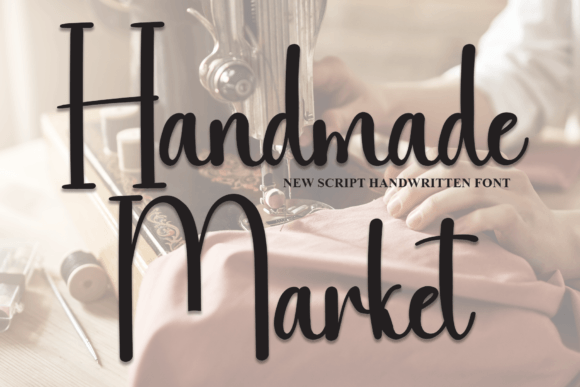
Meet Handmade Market Font, the playful and easygoing handwritten font that's ready to add a dash of charm to all your creative projects. Whether you're a seasoned graphic designer or just starting, this font is your perfect companion for irresistible designs.
With its unique and charismatic style, Handmade Market Font will effortlessly elevate your designs to new heights. Its friendly and approachable vibe makes it an excellent choice for crafting eye-catching logos, vibrant posters, engaging social media graphics, and heartfelt greeting cards for any occasion.
But it doesn't stop there - Handmade Market Font is an extraordinary choice for digital designs. Its smooth and fluid strokes bring a touch of elegance and sophistication to websites, presentations, and even digital ads. So, get ready to make a remarkable impact on your audience with this remarkable font.
Designed by the talented Strongkeng Old, this font is meticulously crafted to give your projects an unforgettable character. Its captivating script style captures the essence of genuine artistry and craftsmanship, adding a unique flair to every design.
So, why settle for ordinary when you can have extraordinary? Embrace Handmade Market Font and unleash your creativity. It's the perfect tool to make your designs stand out from the crowd.